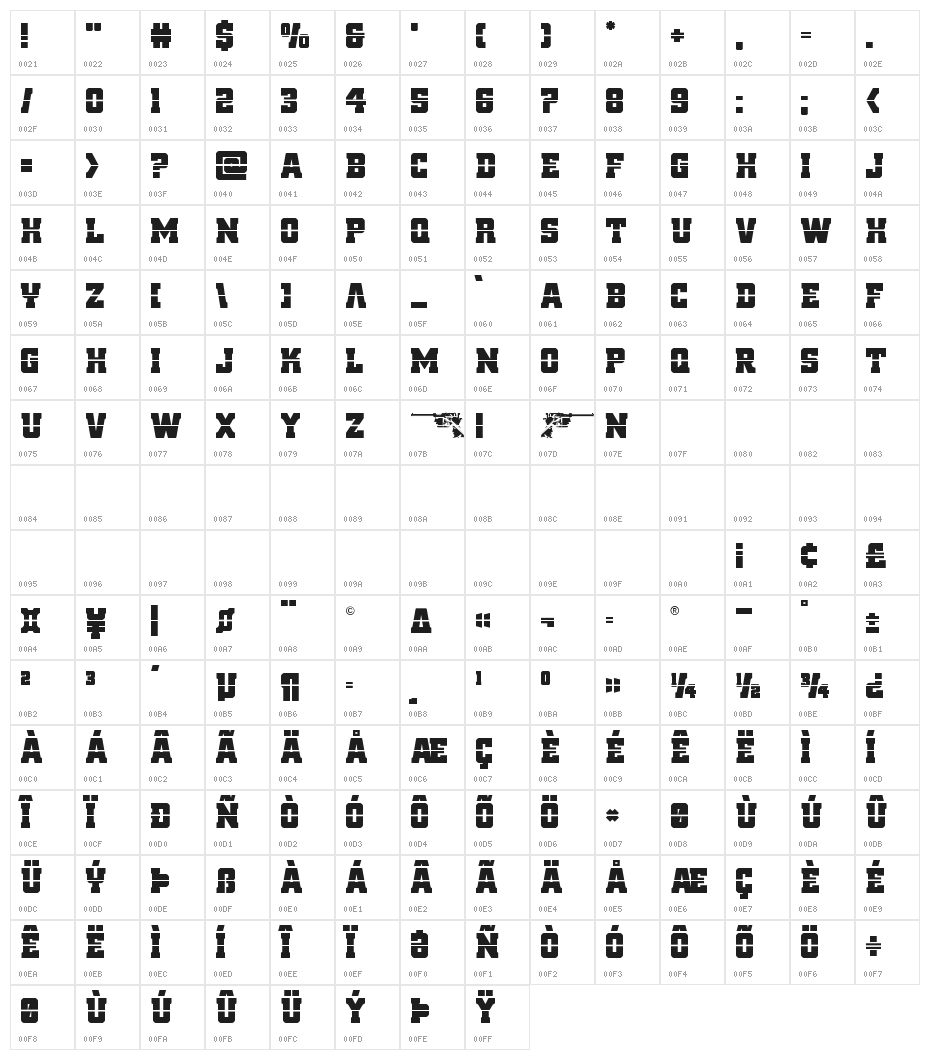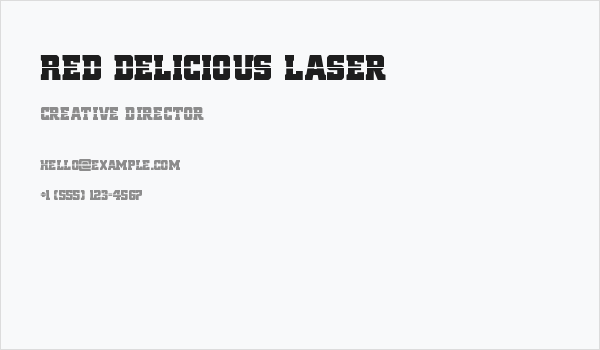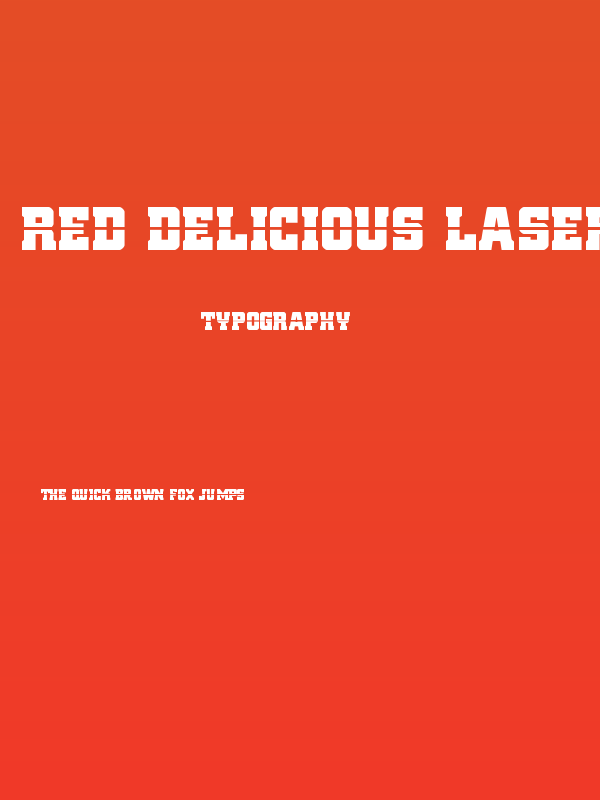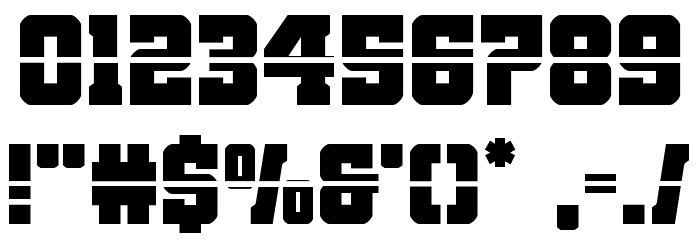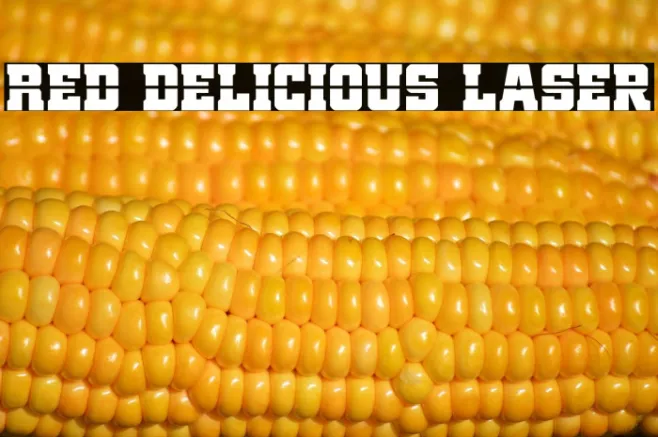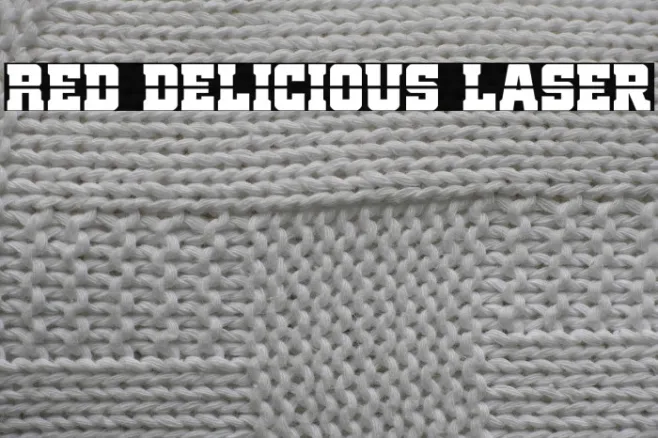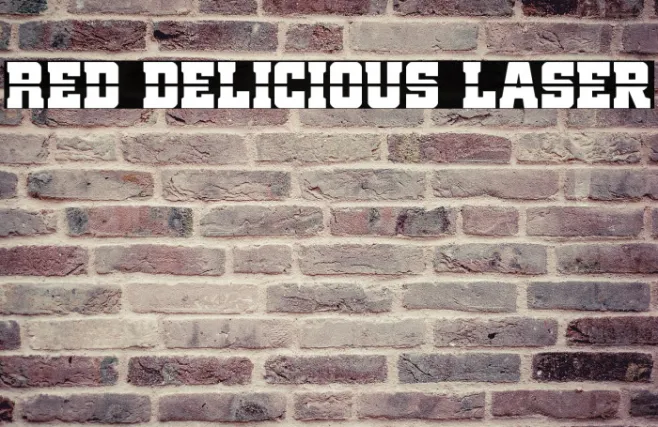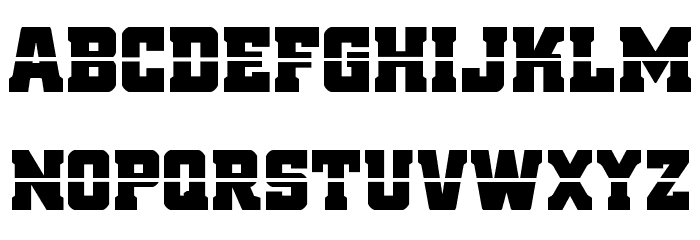
Red Delicious Laser Font
Red Delicious Laser Description
This font features a bold and robust design with a distinct stencil-like appearance. The characters are characterized by thick, blocky shapes with sharp angles and cut-out sections, giving it a mechanical and industrial feel. The uppercase letters are uniform in height, while the numerals and special characters maintain the same boldness and style. The font's design is consistent throughout, providing a cohesive look that is both striking and functional. Its unique style makes it suitable for attention-grabbing headlines and designs that require a strong visual impact.
| Overall Style | Industrial, Modern |
| Proposed Projects | Ideal for posters, signage, branding, and any project needing a bold, industrial look. |